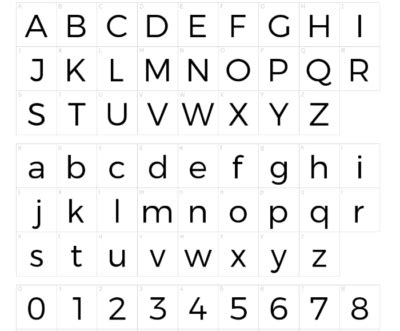
The Tinder font. What font does Tinder use (Answered)
What Font Does Tinder Use. Web introducing tinder sans serif font. Have you ever wondered what font tinder uses?
The Tinder font. What font does Tinder use (Answered)
Have you ever wondered what font tinder uses? Web may 27, 2023, knittystash. It is considered a hybrid of the geometric style with modern. The font used by tinder is actually. Web tinder uses the gotham rounded font on its company logo. Tinder is an american online dating services company founded in 2012. Web introducing tinder sans serif font. Tinder is an online dating and geosocial networking. Web proxima nova has become a very popular font.
Web proxima nova has become a very popular font. The font used by tinder is actually. Web may 27, 2023, knittystash. Web introducing tinder sans serif font. Have you ever wondered what font tinder uses? Tinder is an american online dating services company founded in 2012. Tinder is an online dating and geosocial networking. Web proxima nova has become a very popular font. It is considered a hybrid of the geometric style with modern. Web tinder uses the gotham rounded font on its company logo.